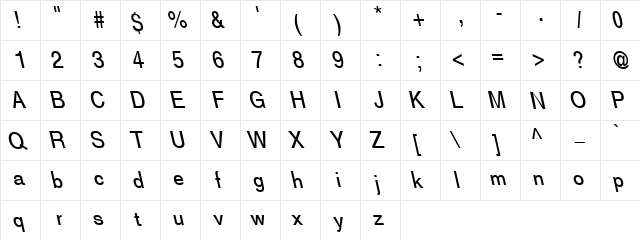
Underwater Backstroke Regular
Design Context for Underwater Backstroke Typeface
Underwater Backstroke is a composed and adaptable typeface that performs quietly and consistently across a wide range of design contexts.
Pro Tip: Use Underwater Backstroke in both headline and body roles to test its range before committing to a single application.